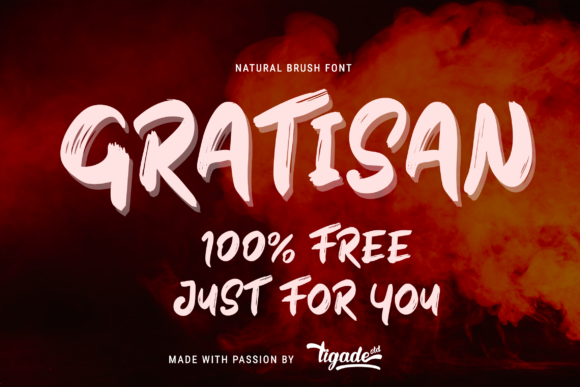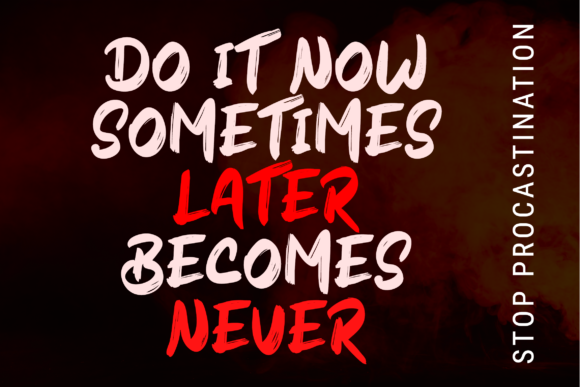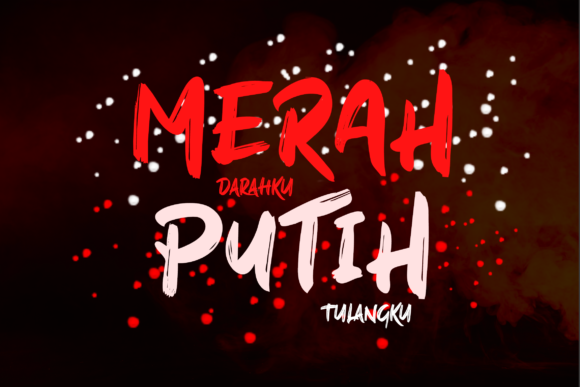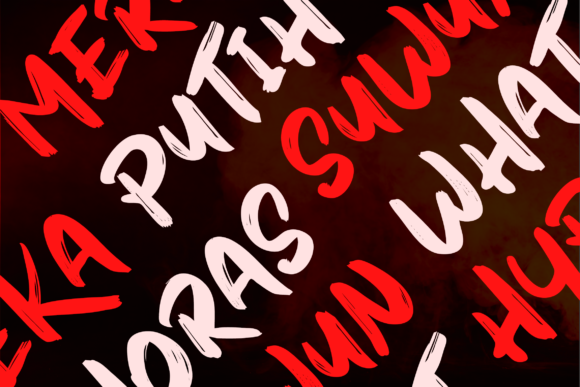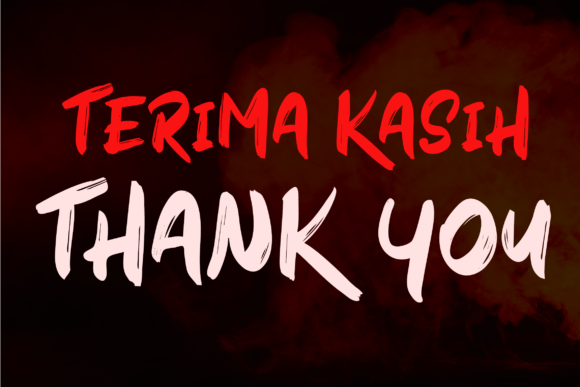
HomePersonal Use FreeGratisan Personal Use Free Gratisan FacebookTwitterPinterestWhatsApp 1 of 5 About Gratisan Font Gratisan is a cool, brushed and bold display font. It will look stunning on any poster flyer or print.Use this font for your designs and explore its endless possibilities. DOWNLOAD NOW People also explored Ketty Love Font Xenotype Pro Pumpkin Cookies Font Sunshine Font Marriage Font Delistha Signature Font Lemonte Buster Font Pacific Again Font Mulled Wine Font 132 0 TagsGratisan Font Previous articleFreeNext articleMowgli LEAVE A REPLY Cancel reply Comment: Please enter your comment! Name:* Please enter your name here Email:* You have entered an incorrect email address! Please enter your email address here Website: Save my name, email, and website in this browser for the next time I comment. Personal Use Free Valentines Day Personal Use Free Read more about this font Blast Personal Use Free Read more about this font Amrina Personal Use Free Read more about this font Eric”s Personal Use Free Read more about this font BLOG Free Fonts Risk: Why Free Fonts Can Be Dangerous for Designers Free Fonts Risk: Why Free Fonts Can Be Dangerous for Designers Using free fonts is a common practice in web and graphic design. However, the... Using Fonts in Digital Marketing: Tips to Strengthen Your Brand Identity To increase your work productivity, choose the most readable fonts. Where to Buy American Fonts Online in 2024